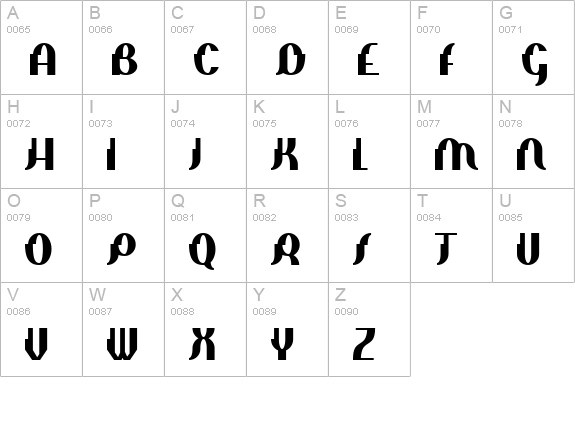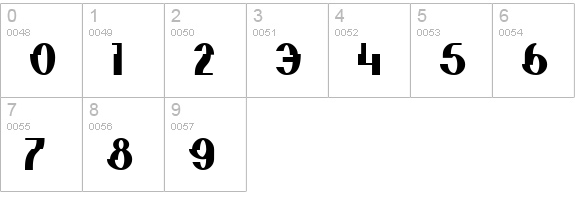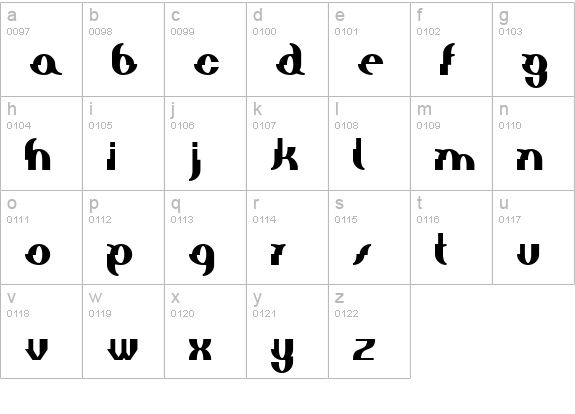
Elephant man Bold Font Details
Elephant man Bold is a strong, high-contrast variant in the Elephant typeface family \xE2\x80\x94 well suited to headlines, attention-grabbing titles, and strong calls-to-action.
The Elephant Man Bold font exudes strength, power, and boldness with its distinctive and commanding appearance. Each letter is meticulously designed to make a lasting impact, making it perfect for headlines, titles, and other display purposes. The robust and imposing nature of this font will make your message stand out and leave a lasting impression on your audience. Best of all, Elephant Man Bold is available for free download at FontsMarket.com. Embrace the power and versatility of this striking font in your design projects today. Let Elephant Man Bold elevate your designs to new heights and help you make a bold statement with every use.